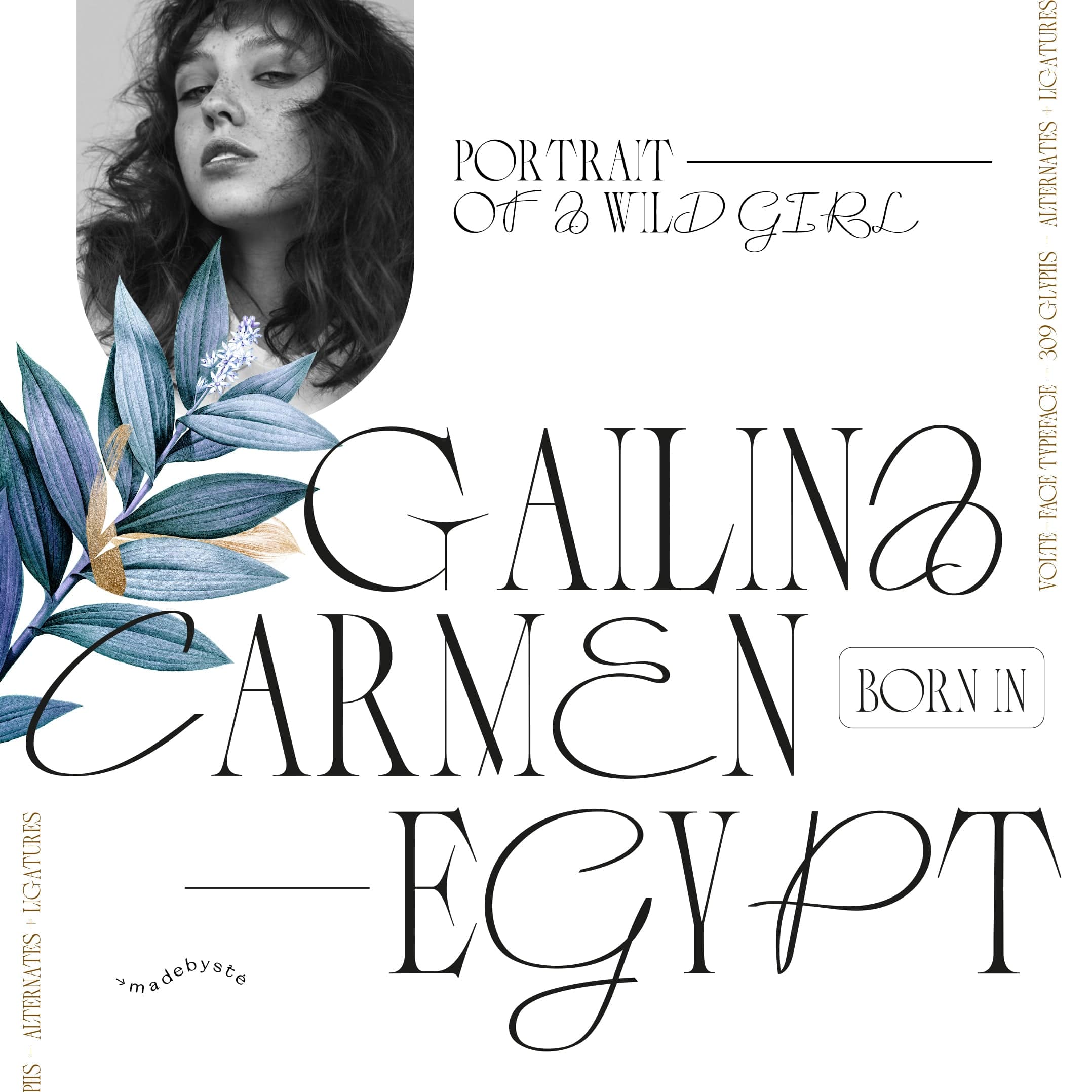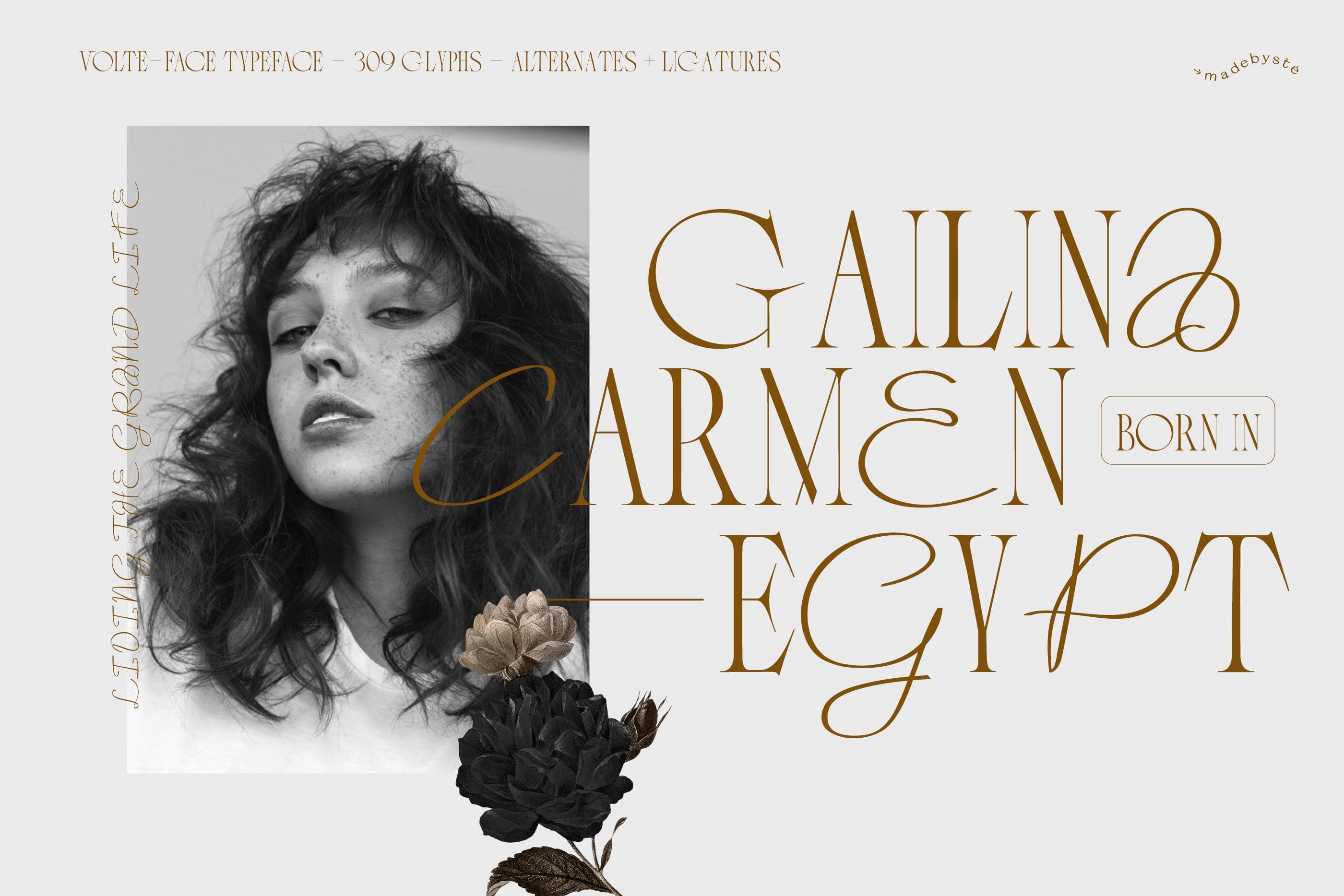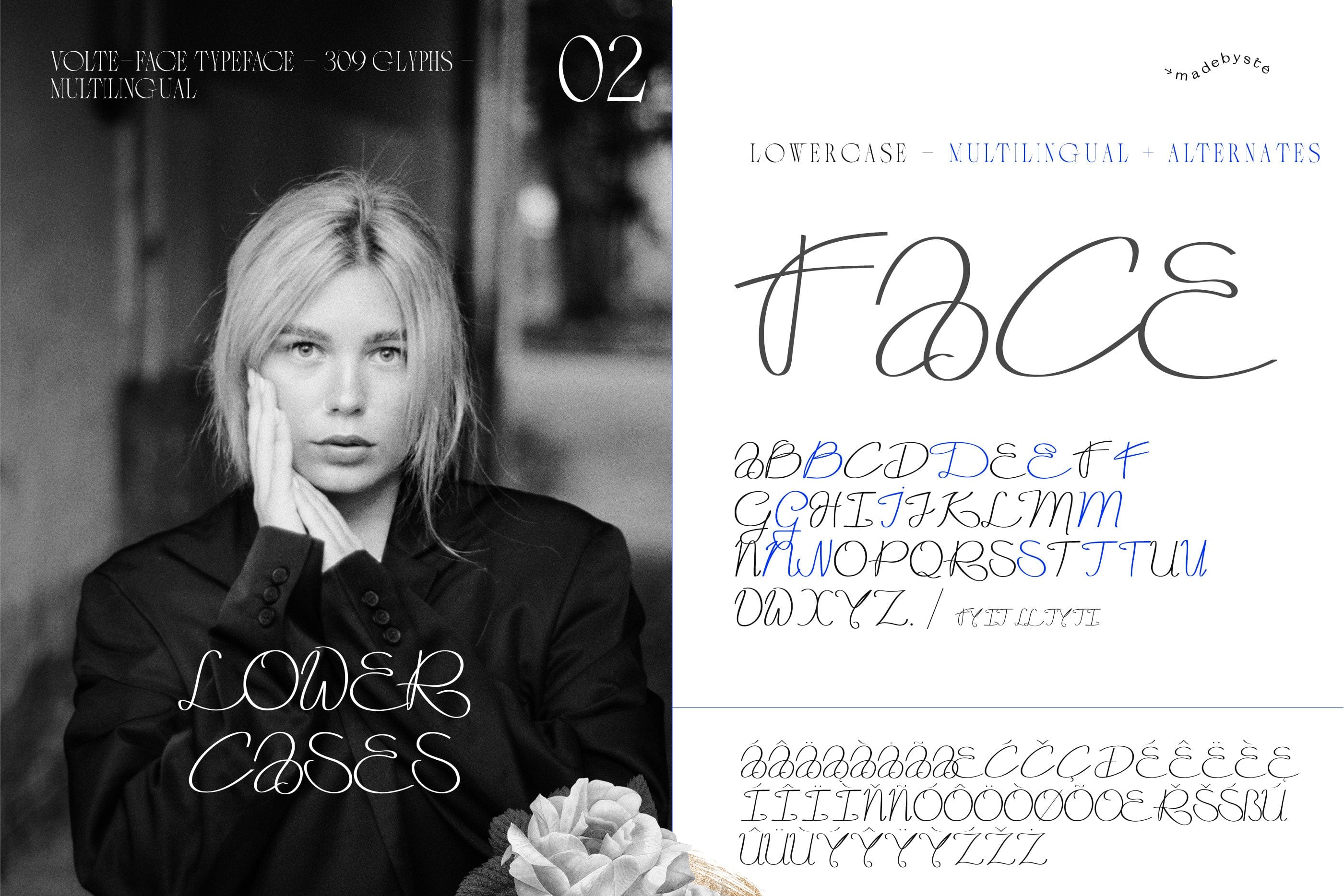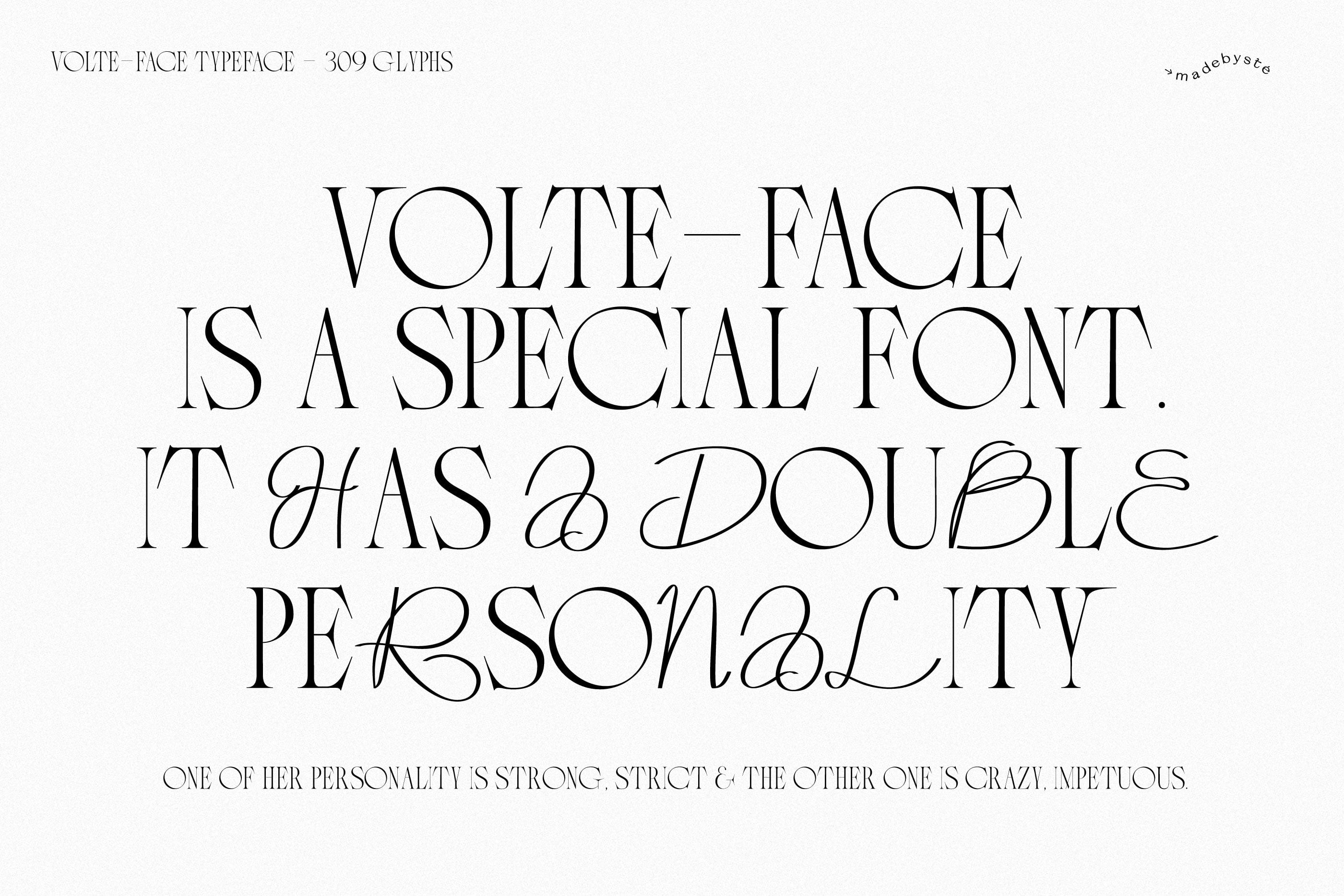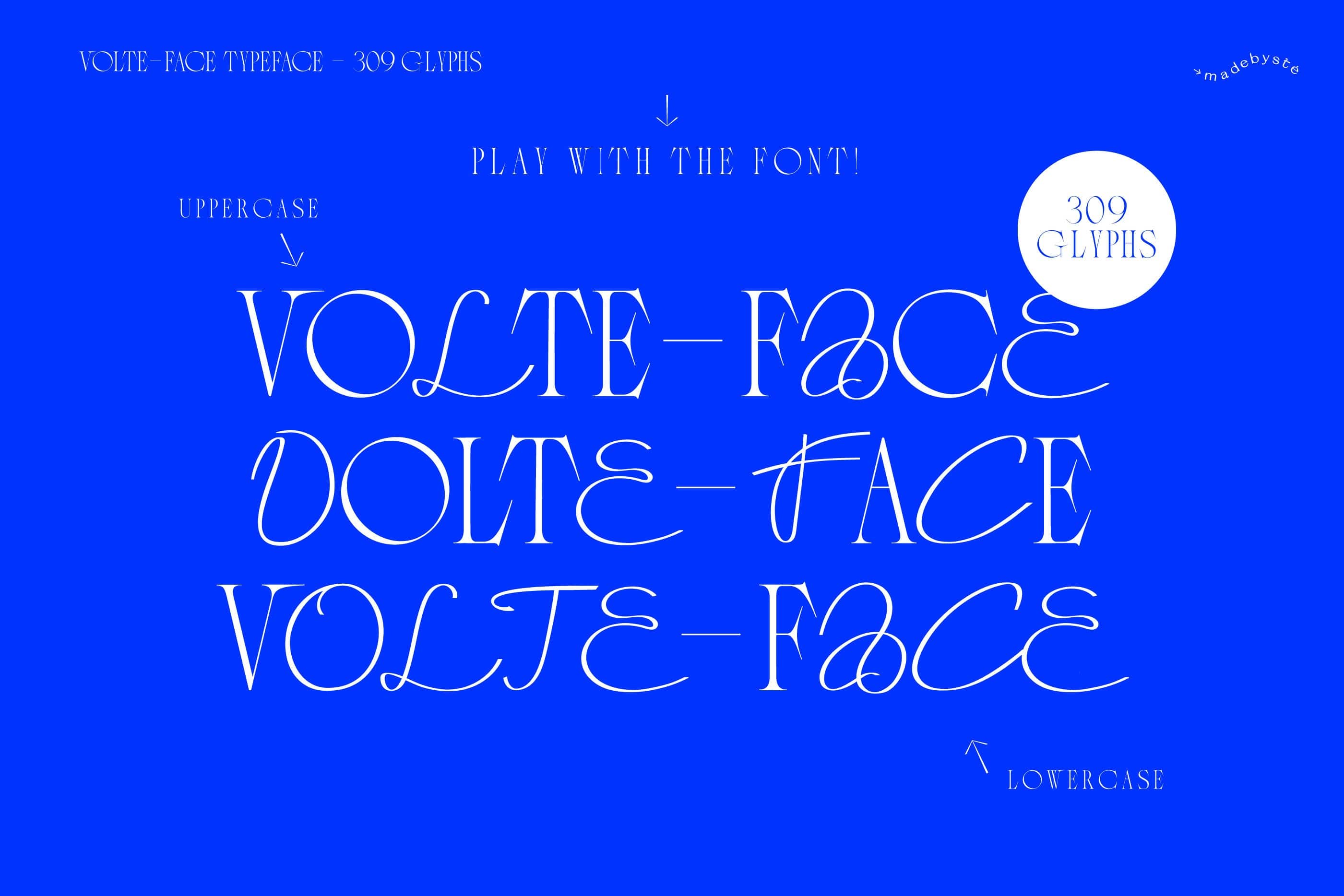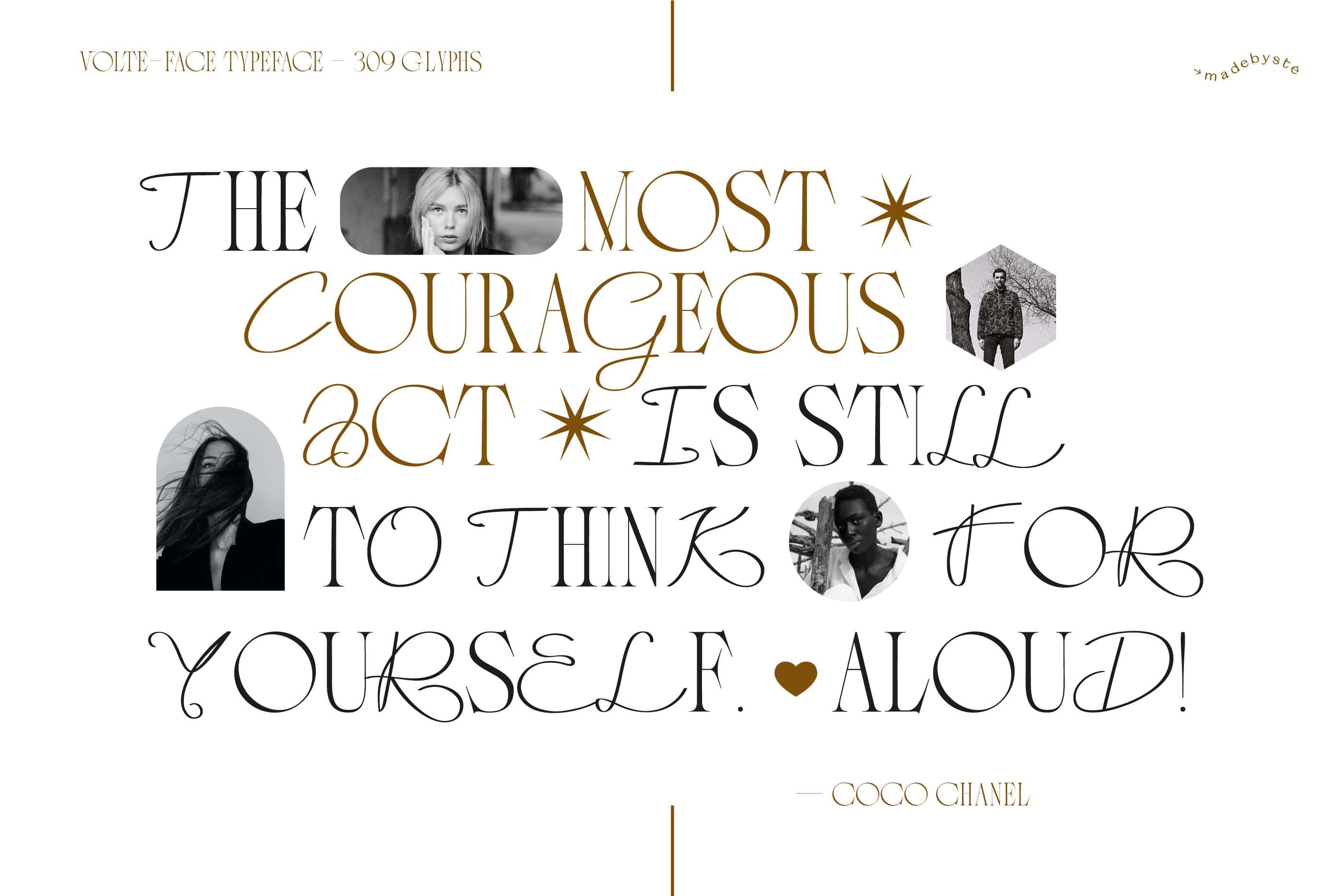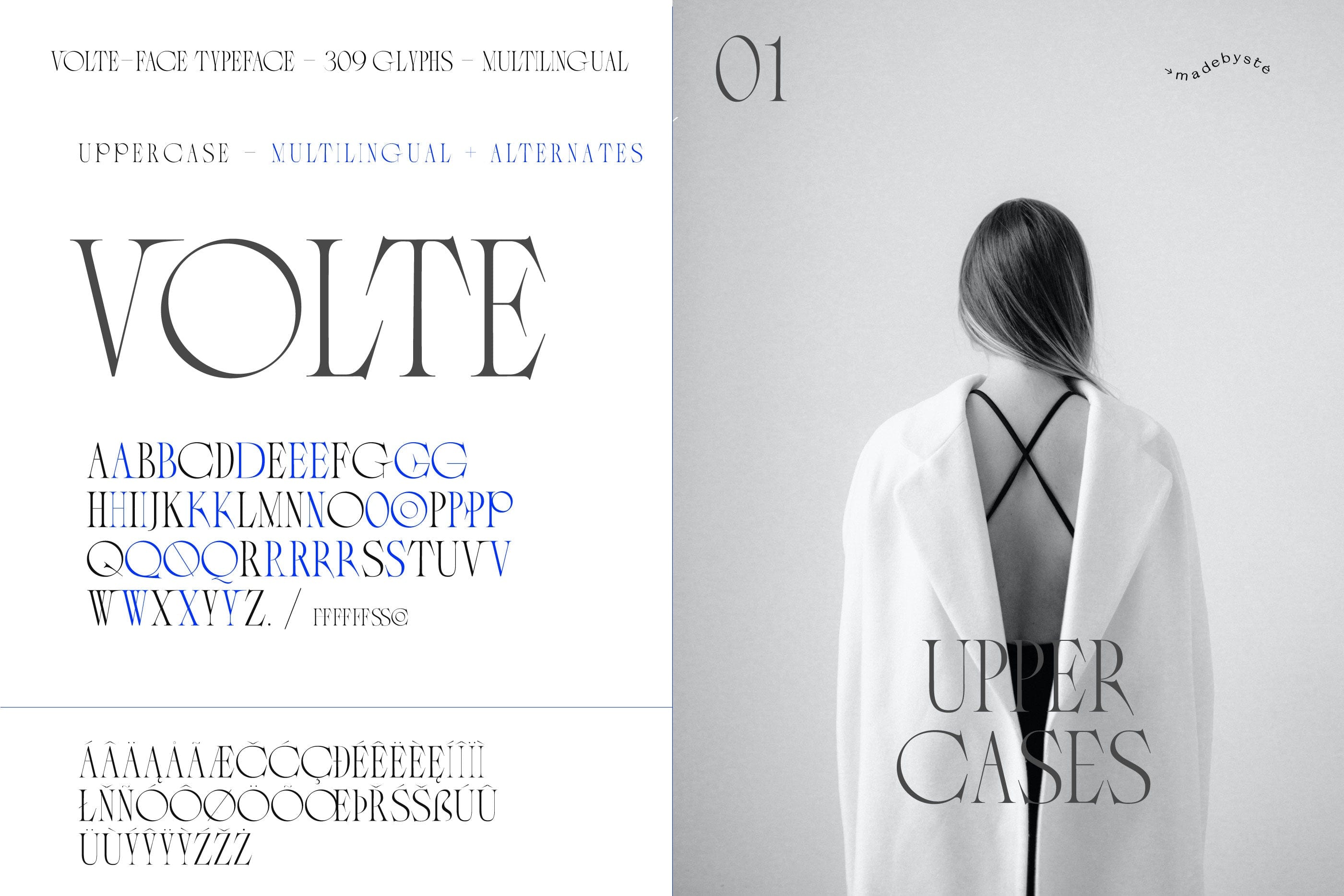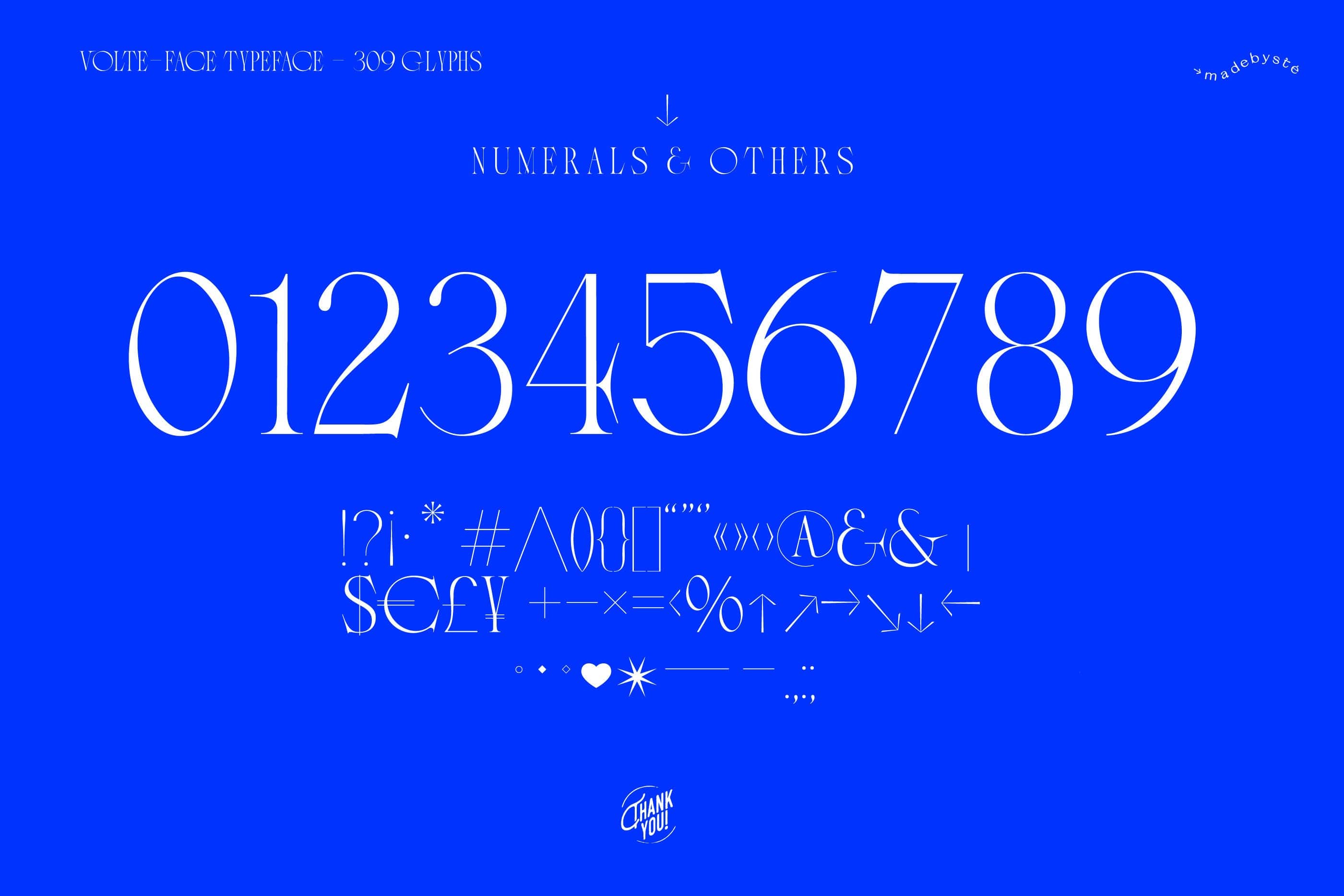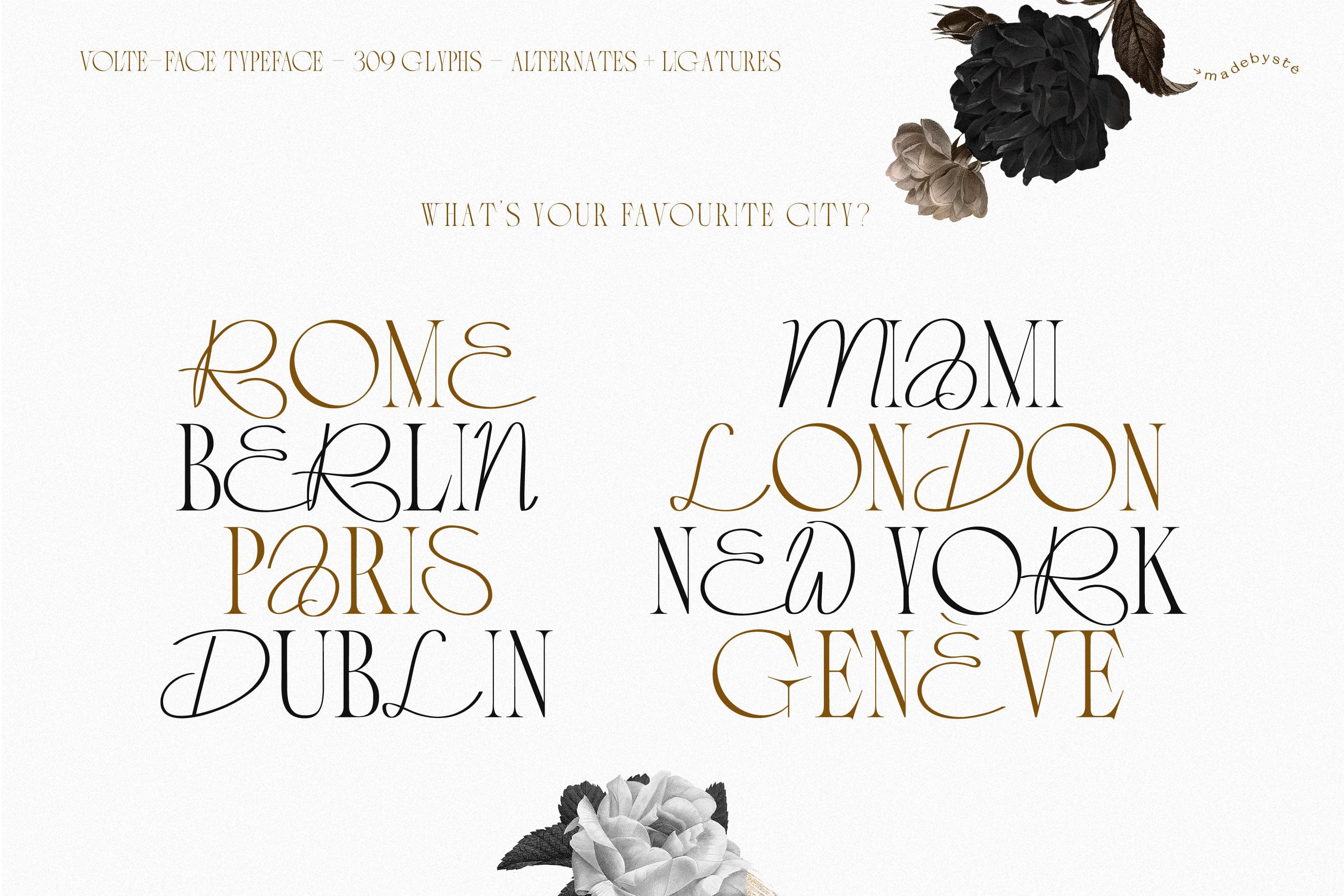
Volte-Face Typeface
Volte-Face typeface is a mix between a chic serif and a script typeface. It has a double personality. Play with the uppercases and the lowercases to give your design a unique style. It is perfect for big headlines for both print and web. Create strong and impactful layouts with Volte-Face.